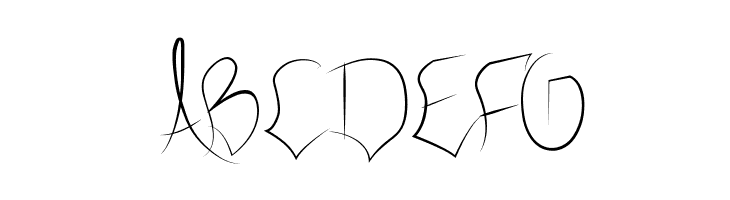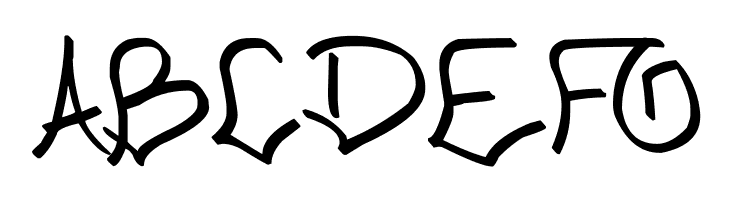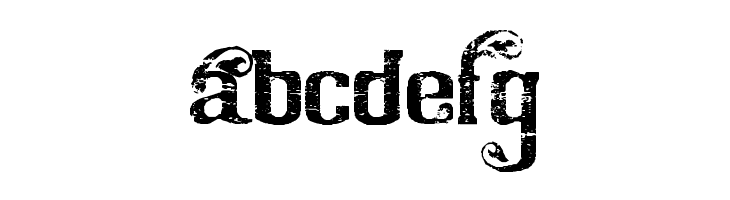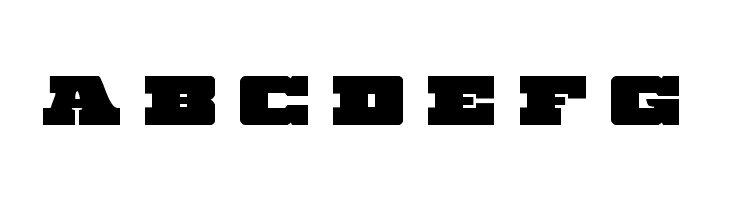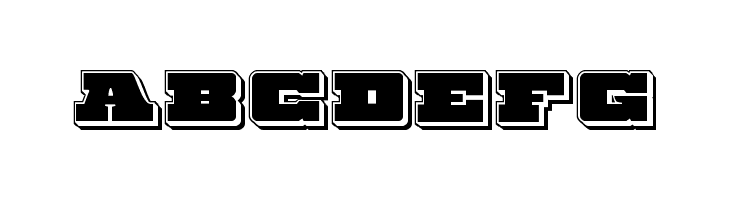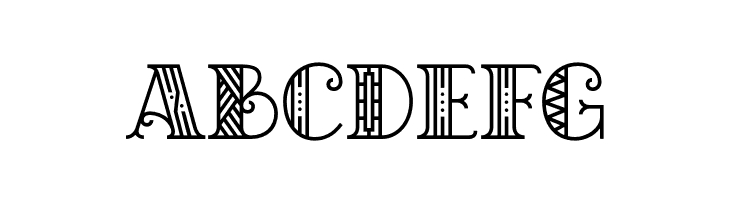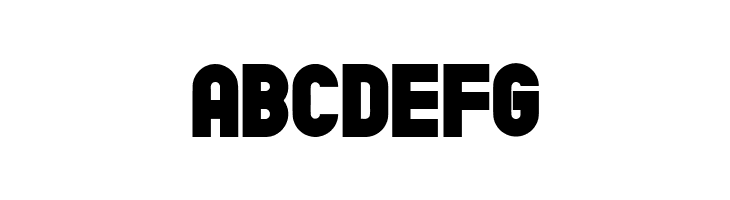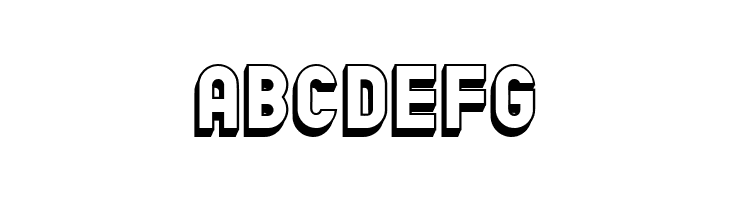
• Chicago Express Halftone
A bold, industrial font with a halftone effect and strong visual impact.
• Chicago Express Laser
A bold, geometric font with a modern, industrial aesthetic.
• Chicago Express Punch
A bold, blocky font with a vintage, collegiate style and strong outlines.
• Chicago Express Title
A bold, geometric font with strong, blocky characters.
• Chicago Flat 3D Regular
A bold, 3D-style font with outlined characters and a modern, playful look.
• Chicago Flat Regular
A bold, geometric font with uniform thickness and a modern retro vibe.
• Chicago HoodZ
A graffiti-inspired font with sharp, angular lines and a bold, urban aesthetic.
• Chicago HoodZZ 2.0
• Chicago House
A bold, distressed font with ornate, vintage embellishments.
• CHICAGO moonshine demo Regular
A bold, decorative font with intricate patterns and a vintage flair.